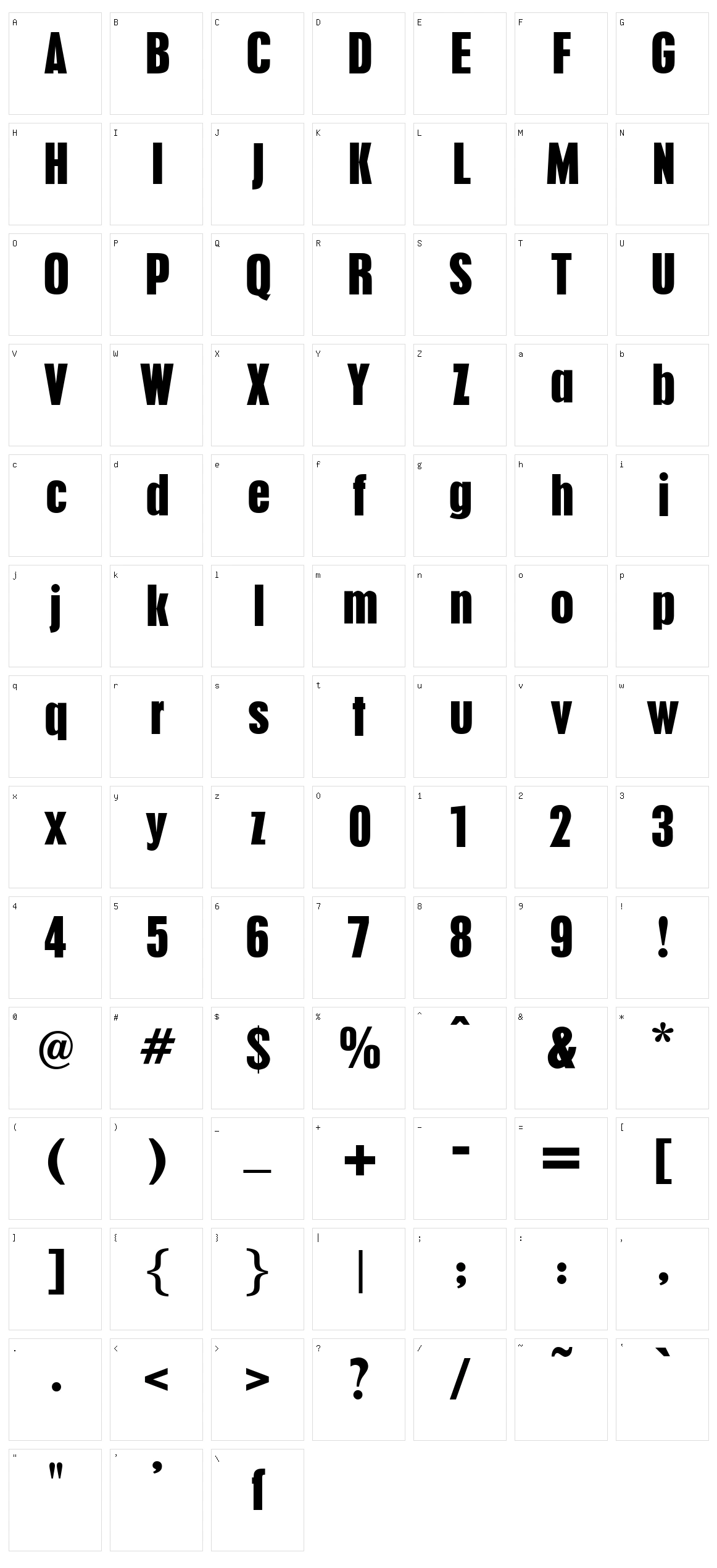
The free font Pilsen Plakat is carefully designed by Dieter Steffmann, showcasing a thoughtful balance of creativity and usability and falls under the Sans serif font style. When you download the ZIP file, it contains only 17.42 KB of font files, making it lightweight and quick to download. Please review the license details below to understand permitted usage and distribution rights. If license information is not available, we recommend using this font for personal projects only or contacting the author directly for commercial usage permissions.